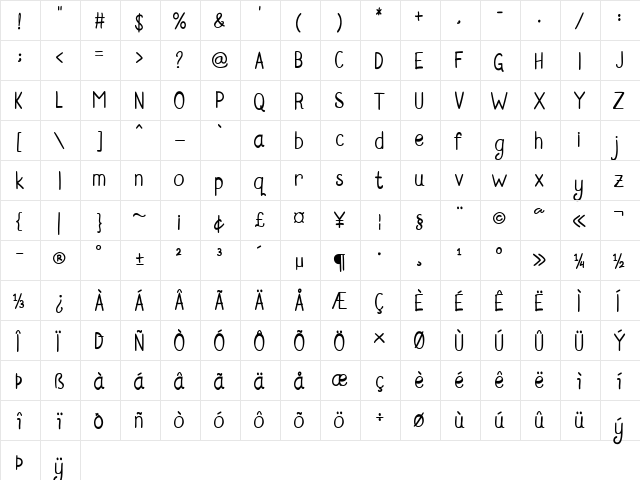
Rosella Sans Regular
| Foundry | Viaction Type.Co |
| Designer | Lukman Hidayat "Viaction Type.Co" |
Design Context for Rosella Sans Typeface
Rosella Sans offers clean, dependable letterforms without strong stylistic allegiance, making it a practical choice for designers who need flexibility.